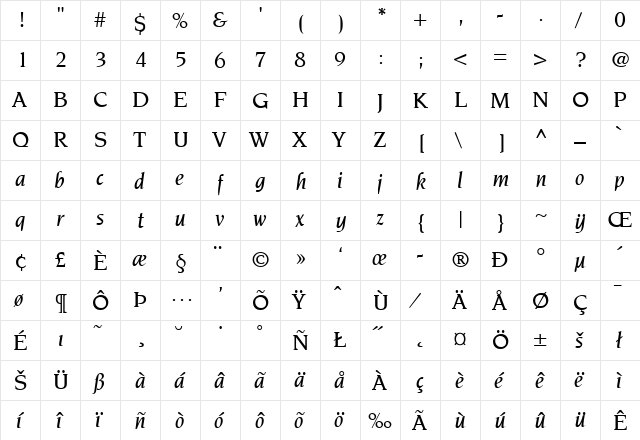
Novarese-MediumItalic Regular Font Preview
Novarese-MediumItalic Regular
Design Context for Novarese-MediumItalic Typeface
Novarese-MediumItalic is a composed and adaptable typeface that performs quietly and consistently across a wide range of design contexts. The dynamic lean of this cut emphasises speed and emphasis in any layout.
Pro Tip: Use Novarese-MediumItalic for emphasis, pull quotes, and subheadings where its slanted energy can add rhythm to the layout.